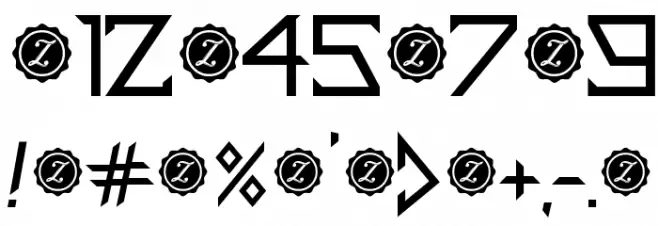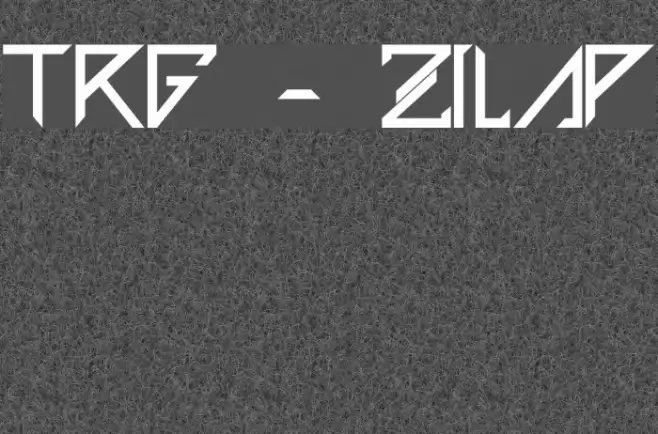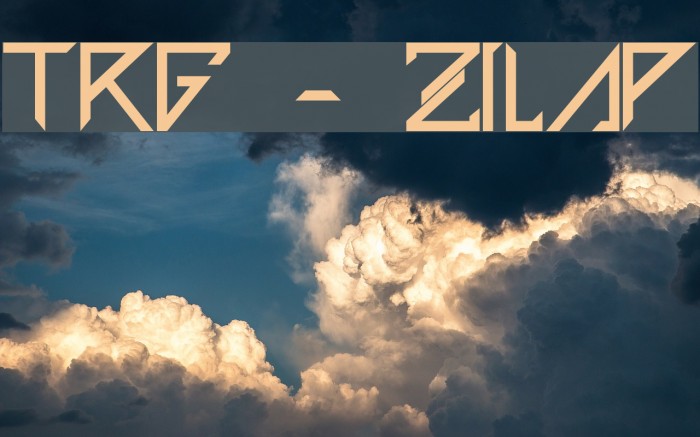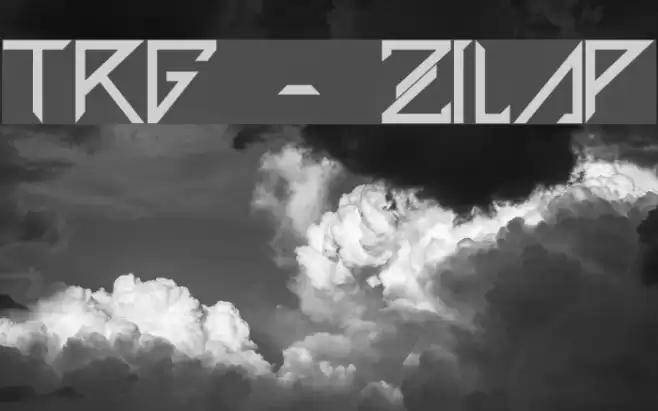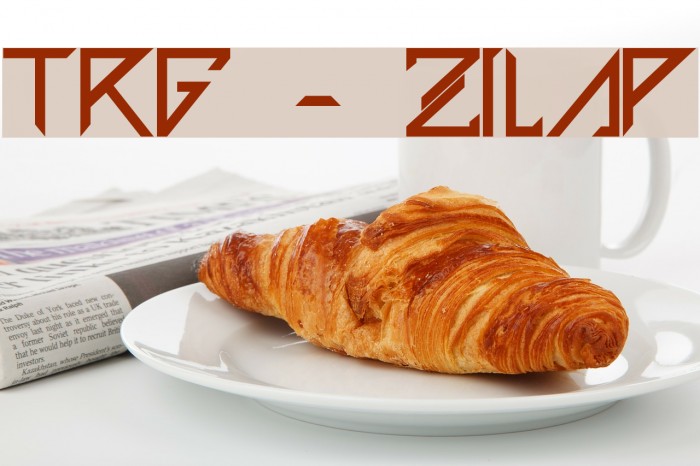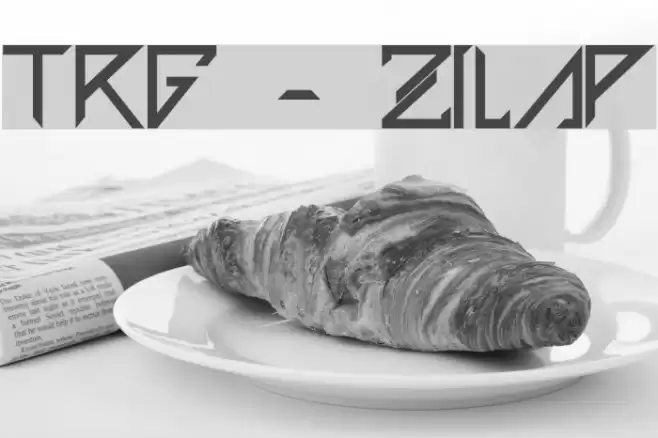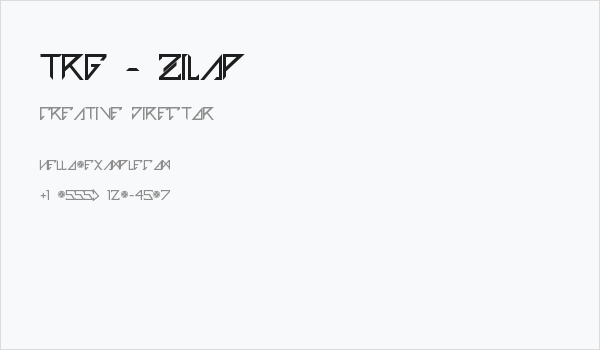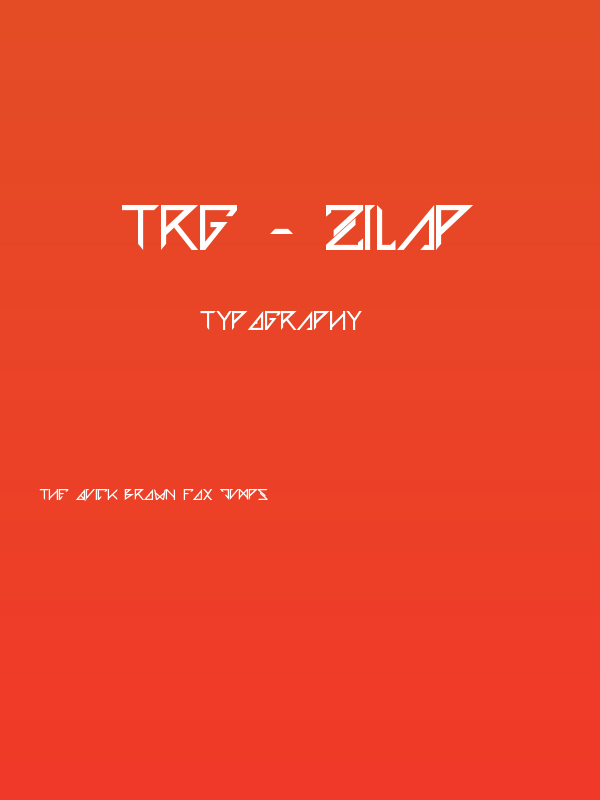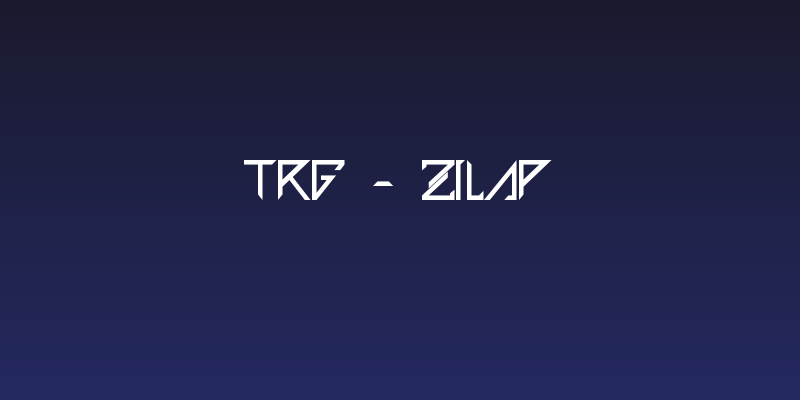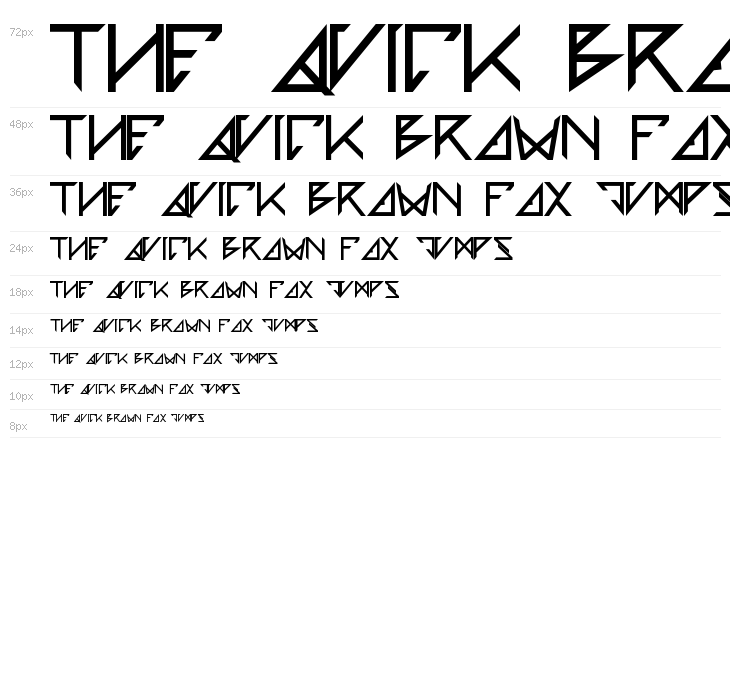
TRG - Zilap Font
TRG - Zilap Description
This font features a bold, angular design with sharp edges and geometric shapes, giving it a futuristic and edgy appearance. The characters are constructed with straight lines and pointed angles, creating a sense of movement and dynamism. The uppercase and lowercase letters maintain a consistent style, while the numbers and special characters integrate seamlessly with the overall design. The font's unique aesthetic makes it stand out, suitable for projects that require a modern and unconventional look.
| Proposed Projects | Ideal for sci-fi themed projects, video game titles, posters, and branding that requires a modern and striking appearance. |